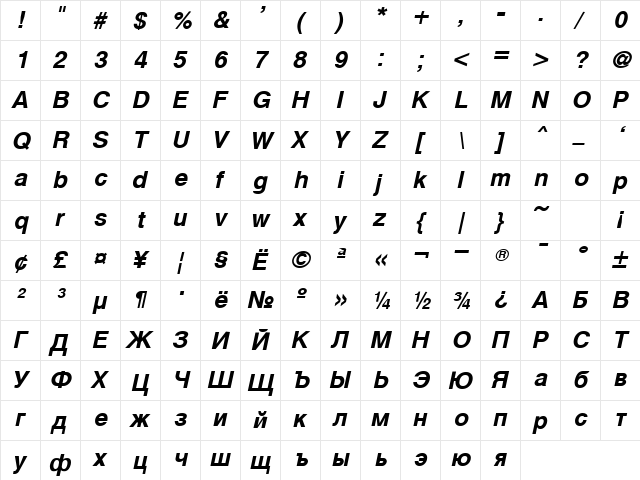
Cyrvetica Bold Oblique Font Preview
Design Context for Cyrvetica Typeface
Cyrvetica takes a measured approach to typography — its balanced proportions and neutral character make it a reliable workhorse for both digital and print work. Its italic angle brings a sense of urgency and motion to the letterforms. The heavy weight commands attention and anchors typographic hierarchies.
Pro Tip: Try Cyrvetica for annotation and caption copy alongside an upright companion — the contrast in angle creates a dynamic but ordered typographic system.